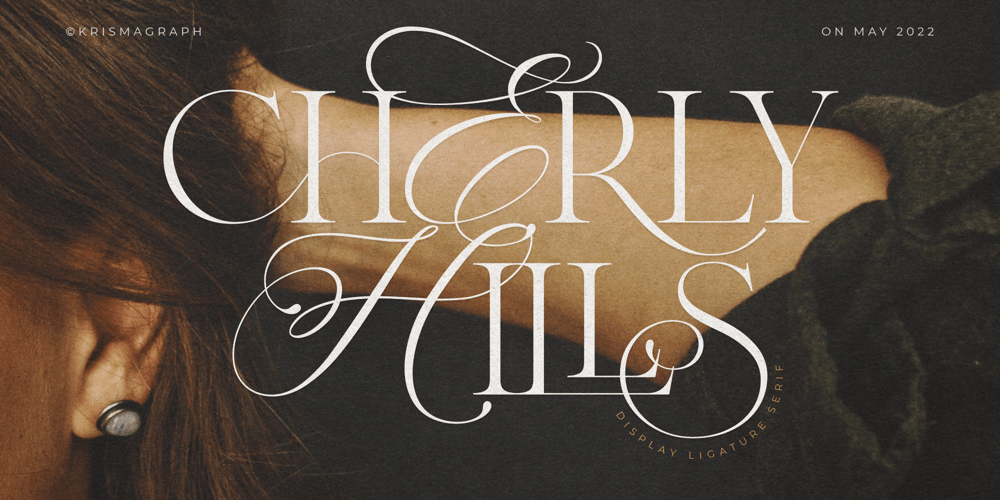
Cherly Hills Typeface Font Family was designed by Ratna Krismawati and published by Krismagraph. Cherly Hills Typeface contains 2 styles and family package options. Cherly Hills typeface is a beautiful and inspiring mix of classic calligraphy and modern serif with 56 unique ligatures. come in 2 versions regular & italic.Beverly Hills is made mainly for headlines, titles, and other short texts and is well-suited for advertising, vintage mood board, branding, logotypes, packaging, titles, editorial design, modern logos, websites, social media quotes, wedding branding, and modern and vintage design.Accessible in Adobe Illustrator, Adobe Photoshop, Coreldraw, and even work on Microsoft Word. PUA Encoded Characters – Fully accessible without additional design software. Fonts include multilingual support.Image used: All photographs/pictures/vectors used in the preview are not included, they are intended for illustration purposes only.Feel free to follow, like, and share. Thanks so much for checking out my shop!